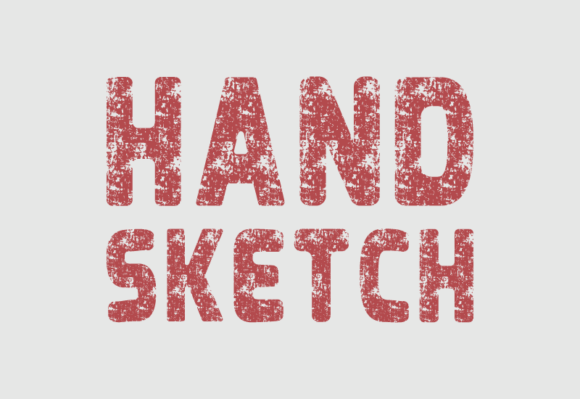
Introducing Hand Sketch Font, the ultimate font choice for those seeking to make a lasting impression. This one-of-a-kind sans-serif font, created by GraphicsNinja, is a true statement-maker that will captivate and inspire. With its edgy and raw design, Hand Sketch Font brings a sense of grit and rebellion to any project, making it the perfect choice for those who dare to be different.
The distinctive rough lines and distressed texture of Hand Sketch Font set it apart from ordinary fonts, adding a touch of boldness and individuality. Whether you're designing posters, album covers, or streetwear branding, this font will elevate your creations to new heights. It injects an unparalleled level of energy and excitement, ensuring that your work stands out from the crowd.
But Hand Sketch Font is not just about aesthetics; it's also about functionality. Its clean lines and legibility make it easy to read, ensuring that your message gets across loud and clear. Say goodbye to dull and generic fonts that fail to make an impact. Hand Sketch Font is here to revolutionize your designs and leave a lasting impression on your audience.
When it comes to marketing your products or services, first impressions matter. Hand Sketch Font will capture the attention of potential customers and draw them in. Its unique and eye-catching design will make your flyers and promotional materials stand out from the competition. With Hand Sketch Font, you can effortlessly create visually stunning and attention-grabbing content that resonates with your target audience.
Don't settle for mediocrity. Choose Hand Sketch Font and unlock a world of creativity and limitless possibilities. Whether you're a professional designer or an aspiring artist, this font will empower you to unleash your full potential. Embrace the rebellious spirit of Hand Sketch Font and watch your designs come to life in ways you never thought possible.
So why wait? Experience the power of Hand Sketch Font today and see the difference it can make in your creative endeavors. Stand out, make a statement, and leave a lasting impression with this extraordinary font. Elevate your designs and showcase your unique style with Hand Sketch Font – the best choice for flyer design and beyond.